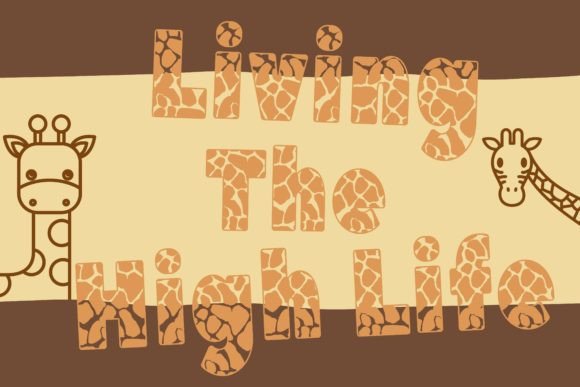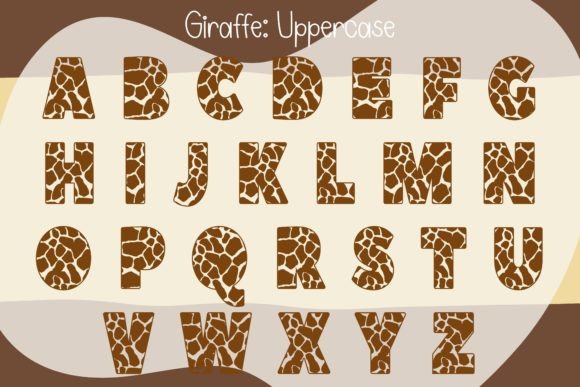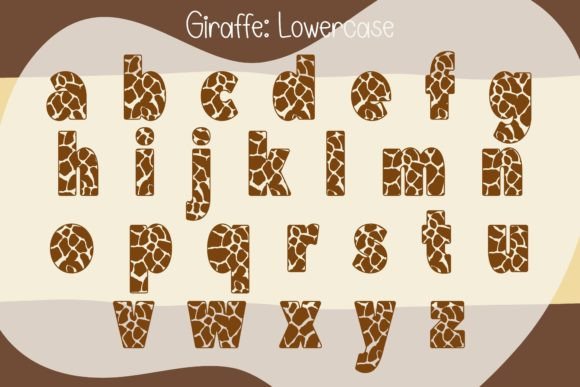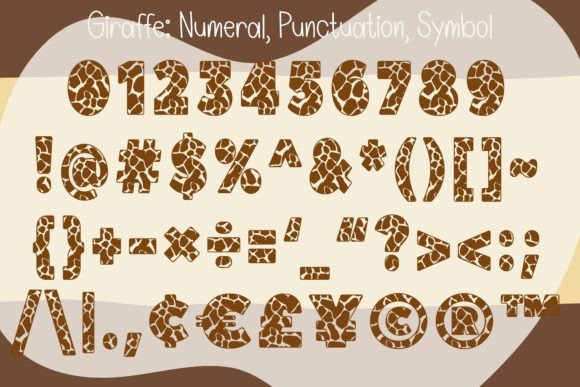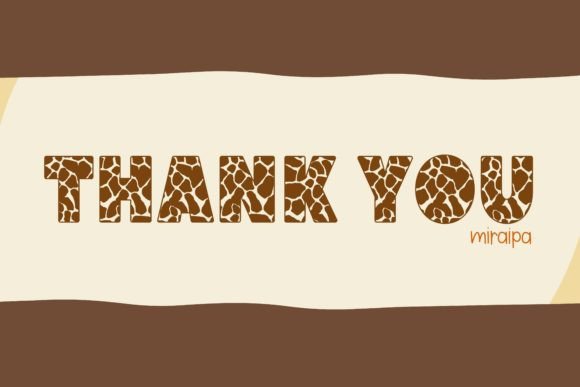
The Cutest Addition to Your Font Library: Giraffe Font
Have you ever been working on a project, and suddenly, you just can’t seem to find the right font? I recall a particularly frustrating moment when I was designing a set of party invitations for a friend’s kid’s birthday bash. The theme was wild animals, and I wanted something that captured the playful, cute essence of, say, a giraffe. That’s when I stumbled upon the Giraffe font, and let me tell you, it was love at first sight! 🐒
An Honest Review of Giraffe Font
Giraffe is a decorative font that’s designed to be cute and lovely, making it perfect for a variety of projects. Here’s what I love about it:
- ✨ Cute and playful: The font has a fun, whimsical feel that’s perfect for child-related projects, family crafts, or anything that needs a friendly touch.
- ✅ Highly versatile: You can use it for party decorations, invitations, posters, blogs, clothing designs, greeting cards, social media posts, and more.
- 🎉 Easily customizable: The font comes with OpenType features, glyphs, and stylistic alternates, which give you a lot of room for creativity.
Now, no font is perfect, and there are a few small quirks to be aware of:
- 🤔 Legibility at small sizes: Like many decorative fonts, Giraffe can get a bit tricky to read at very small sizes. It’s best used at larger sizes where its playful charm can shine.
- ⚠️ Limited use in formal contexts: Given its playful nature, this font might not be the best choice for formal projects, like business presentations or official documents.
The Story Behind Giraffe Font
While the actual origins of Giraffe font might not be well-documented, it’s easy to imagine a designer with a love for wild animals and a passion for creating playful, engaging typography. Perhaps they were inspired by a trip to the zoo or a children’s book featuring a lovable giraffe character. Whatever the inspiration, the result is a font that brings a smile to your face and makes your projects stand out.
| What type of projects is Giraffe font best suited for? | Giraffe font is perfect for child-related projects, family crafts, party decorations, invitations, posters, blogs, clothing designs, greeting cards, and social media posts. |
| Does Giraffe font support OpenType features? | Yes, Giraffe font comes with OpenType features, glyphs, and stylistic alternates, allowing for a high degree of customization. |
Incorporating Giraffe font into your design arsenal can add a fresh, playful touch to your projects. Whether you’re a designer, crafter, or hobbyist, this font’s versatility and charm make it a great choice for a wide range of creative endeavors.